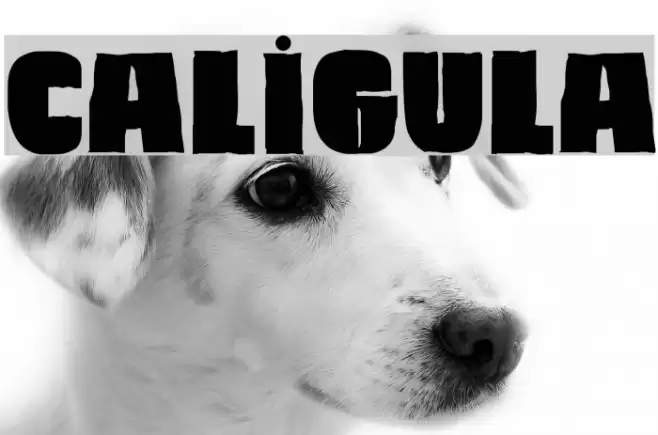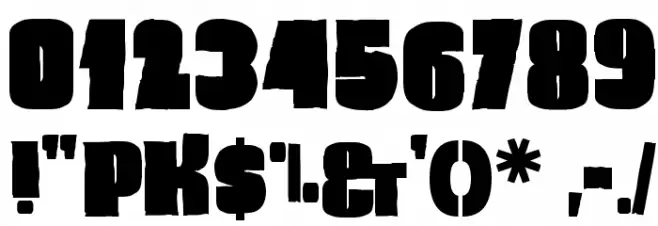
Caligula Font
Caligula Description
This font features a bold and impactful design, characterized by thick, blocky letters with a slightly distressed appearance. The uppercase and lowercase letters maintain a consistent weight, giving the font a cohesive and powerful look. The numbers and special characters follow the same bold style, making them stand out prominently. The overall design is reminiscent of vintage poster fonts, with a modern twist that adds a unique flair. The font's strong presence makes it ideal for attention-grabbing headlines and titles.
A bold, blocky font with a distressed, vintage-inspired design from Distorted Eroded fonts.
- Proposed Projects: Ideal for posters, headlines, branding, and any project requiring a strong visual impact.
- Overall Style: Vintage